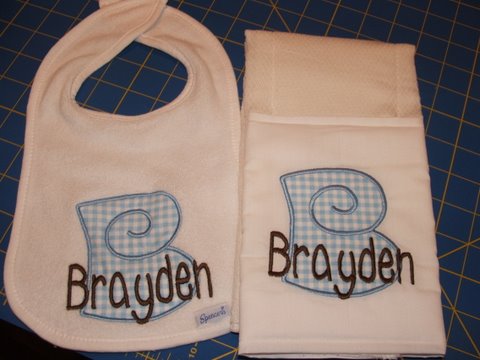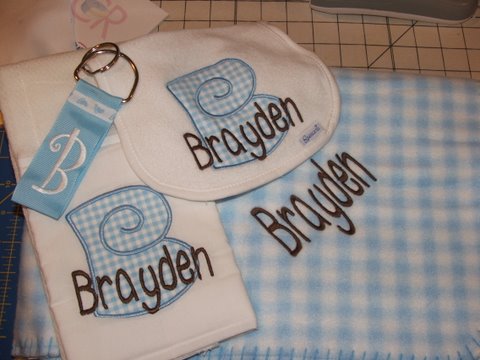
Stack Name Lower Case Font 5 (Shannon Font) - 2 sizes
SHANNNON FONT - This is the 5th in the series of stand alone lower case fonts for creating stacked names.  You receive 26 lower case letters in 2 sizes, approximately 1 inch and 1 1/4 inch heights.  Perfect for stacked names or just adding a name to accent an embroidery design.